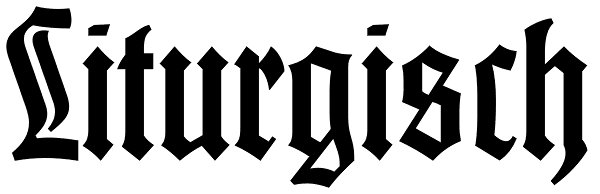
Liturgisch
Liturgisch was created by Otto Hupp for Klingspor foundry in 1906. The basis of this font is a publication in the magazine "Das Plakat" of October 1921. The font contains contextual alternates, ligatures, discretional ligatures for use in German...